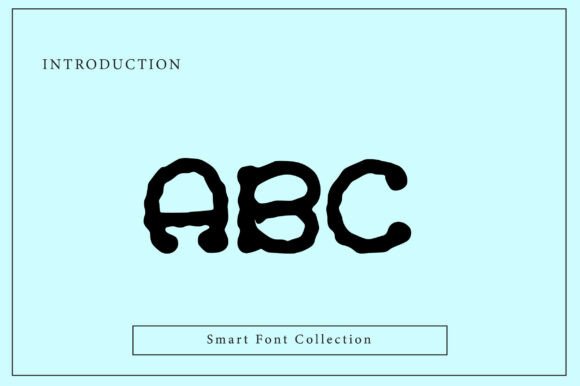
Introduction to Fuzzy Font
Have you ever been browsing through a design inspiration board and stumbled upon a font that just makes you smile? For me, that moment happened when I discovered the Fuzzy Font – a soft, bold, and playful display font that’s as charming as it is versatile. Its rounded bubbly shapes and cozy friendly personality immediately caught my attention, and I knew I had to learn more about this design gem.
As a designer, I can attest to the value of having a high-quality design resource like the Fuzzy Font in your toolkit. Whether you’re working on a creative project for a kids’ brand or a fun event, this font is sure to add warmth, charm, and a cheerful vibe to your typography. Plus, with its transparent background and free download option, you can easily incorporate it into your designs without any hassle.
Key Features of Fuzzy Font
- High-Quality Design Resource: Fuzzy Font offers a high-quality design resource perfect for creative projects.
- Transparent Background: The transparent background of Fuzzy Font allows for seamless integration with various design elements.
- Unique Characteristic: Fuzzy Font’s unique, hand-drawn style sets it apart from other fonts and adds a touch of personality to any design.
Honest Review: Fuzzy Font
I recently stumbled upon Fuzzy Font, and I must say it’s been a game-changer for my creative projects. The high quality of the font is undeniable, and I love the unique feel it brings to my designs.
- ✨ Unique and stylish design that sets my projects apart
- ✨ Transparent background, making it easy to layer with other elements
However, I do have a few gripes:
- ⚠️ Limited customization options, which can make it tricky to adjust the font to my liking
- ⚠️ Some users may find the font too trendy, and it may not be suitable for more conservative designs
Overall, I’m thoroughly enjoying working with Fuzzy Font. It’s become a go-to design resource for me, and I appreciate its versatility and unique style. If you’re looking for a high-quality, creative font to elevate your projects, Fuzzy Font is definitely worth checking out.
Tips for Getting the Most Out of Fuzzy Font
For the best results, use Fuzzy Font in combination with other design elements to create a unique and eye-catching design. Experiment with different font sizes, styles, and colors to achieve the desired effect.
Fuzzy Font is perfect for a variety of creative projects, including graphic design, digital art, and typography. Its unique design and high quality make it an ideal choice for any design resource.